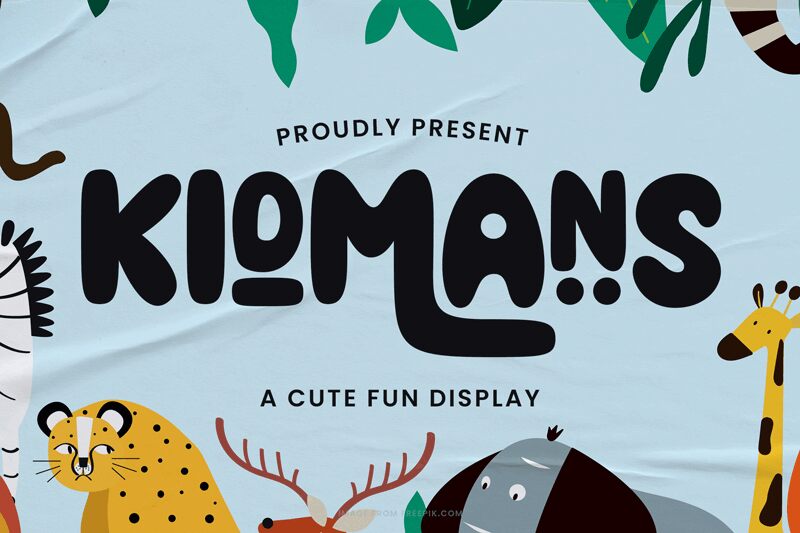
Kidmans Regular
Kidmans emerges as a playful and robust display font crafted by the creative minds at Lettersweet Studio. The extra-bold weight of Kidmans exudes confidence, making it a standout choice for any project seeking to capture attention with its cartoon style charm. Each letter boasts an inviting roundness and a cheerful presence that evokes the whimsy of childhood illustrations and animated tales.
The font's exaggerated proportions are perfectly suited for titles, headers, or any application where a touch of fun is desired. Kidmans's aesthetic appeal lies in its ability to convey lightheartedness without sacrificing readability, ensuring that messages are not only seen but also enjoyed.
Whether gracing the pages of children's books, adorning playful branding materials, or starring in dynamic advertising campaigns, Kidmans offers designers an opportunity to infuse their work with personality and youthful energy. Its versatility in various creative contexts makes it an essential addition to the toolkit of those who dare to delight their audience visually.